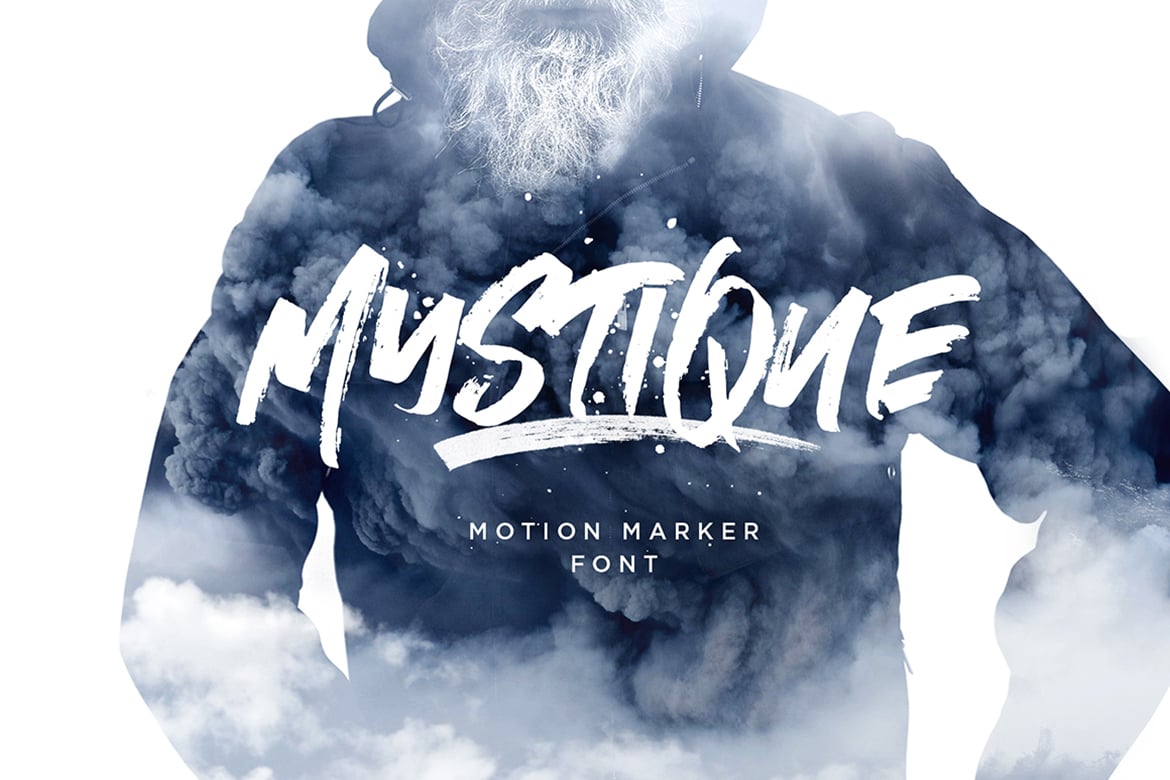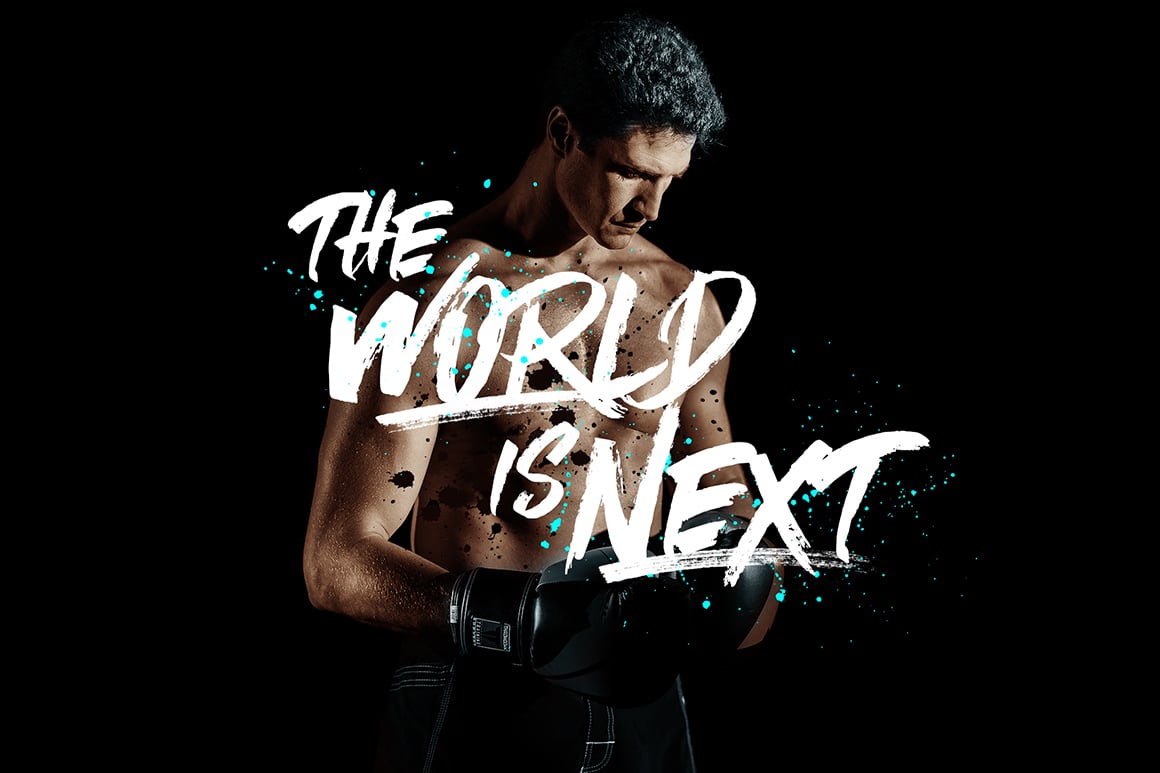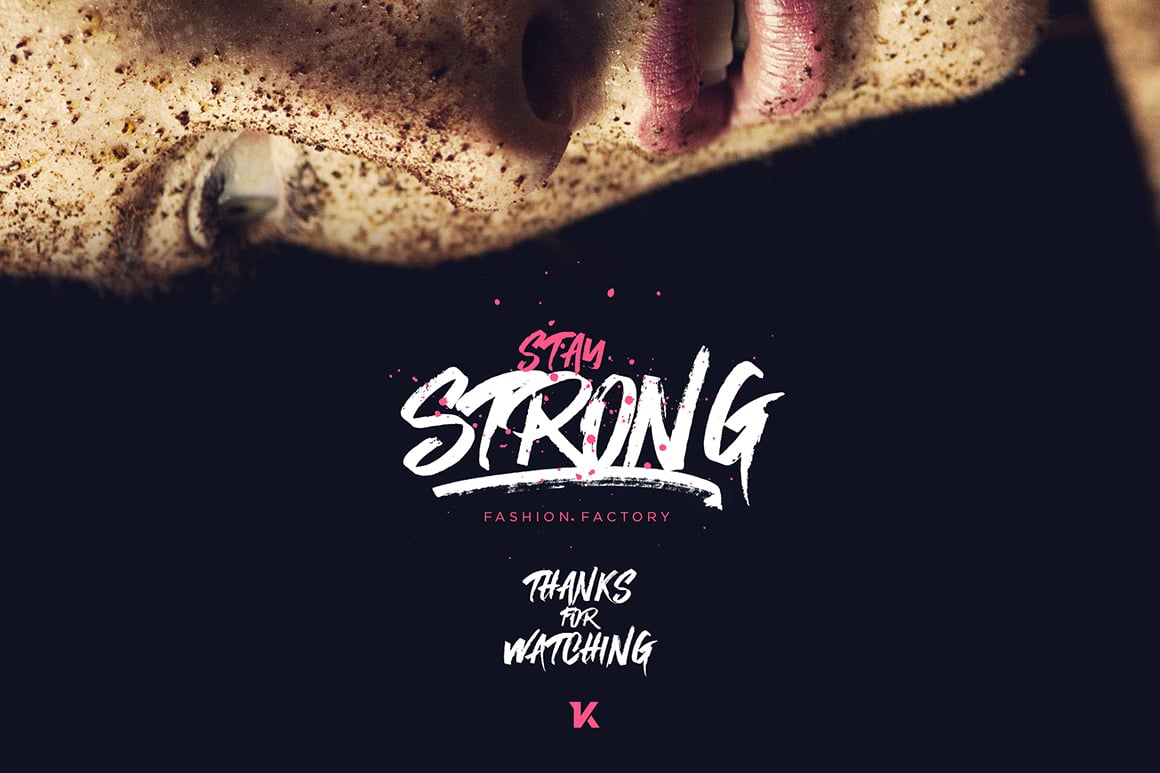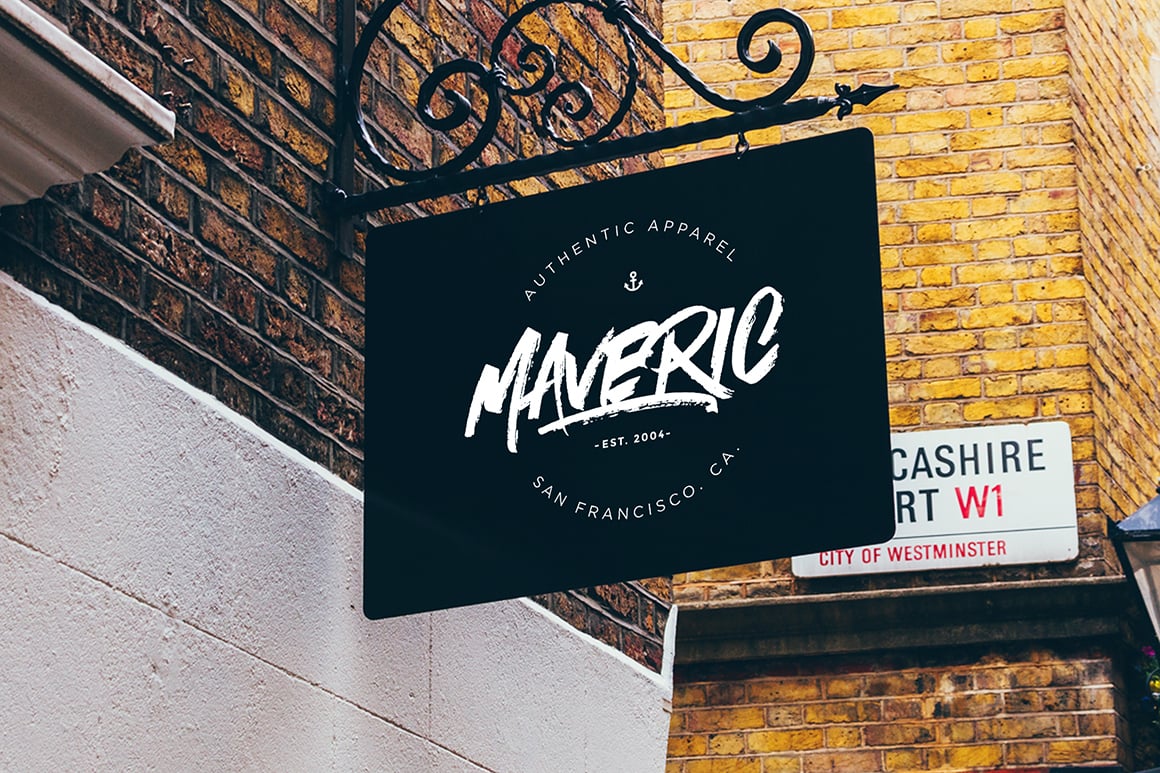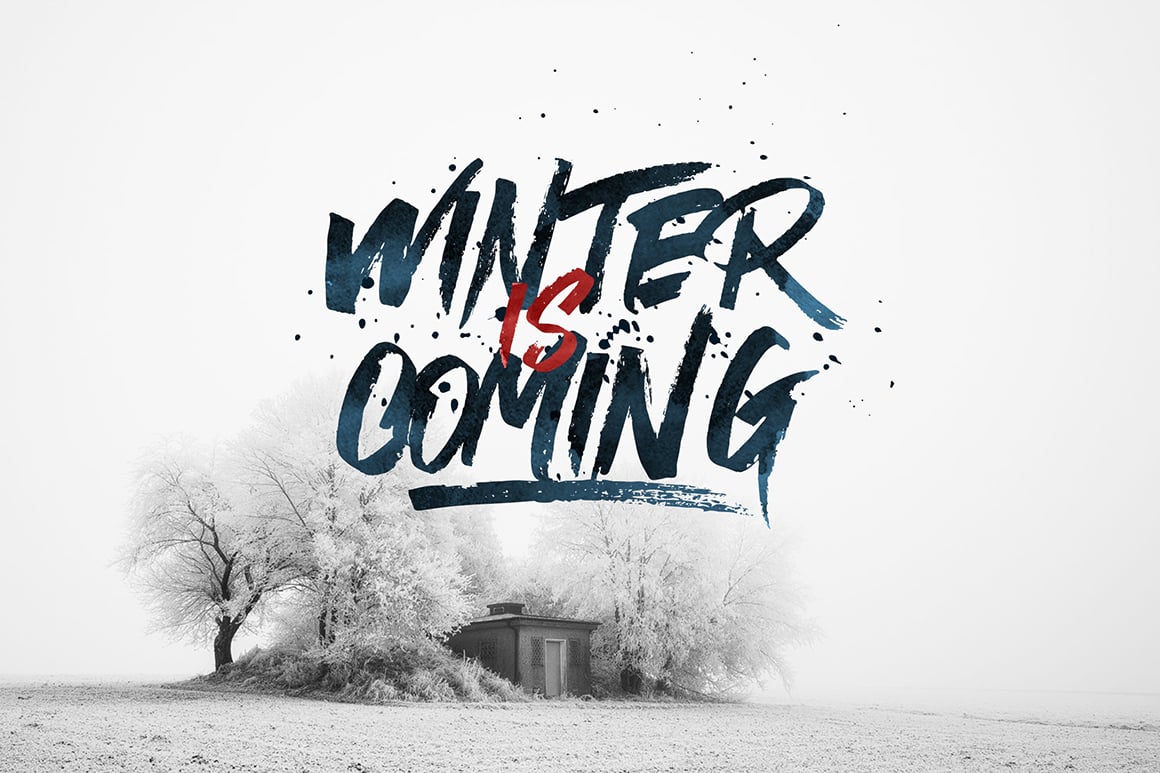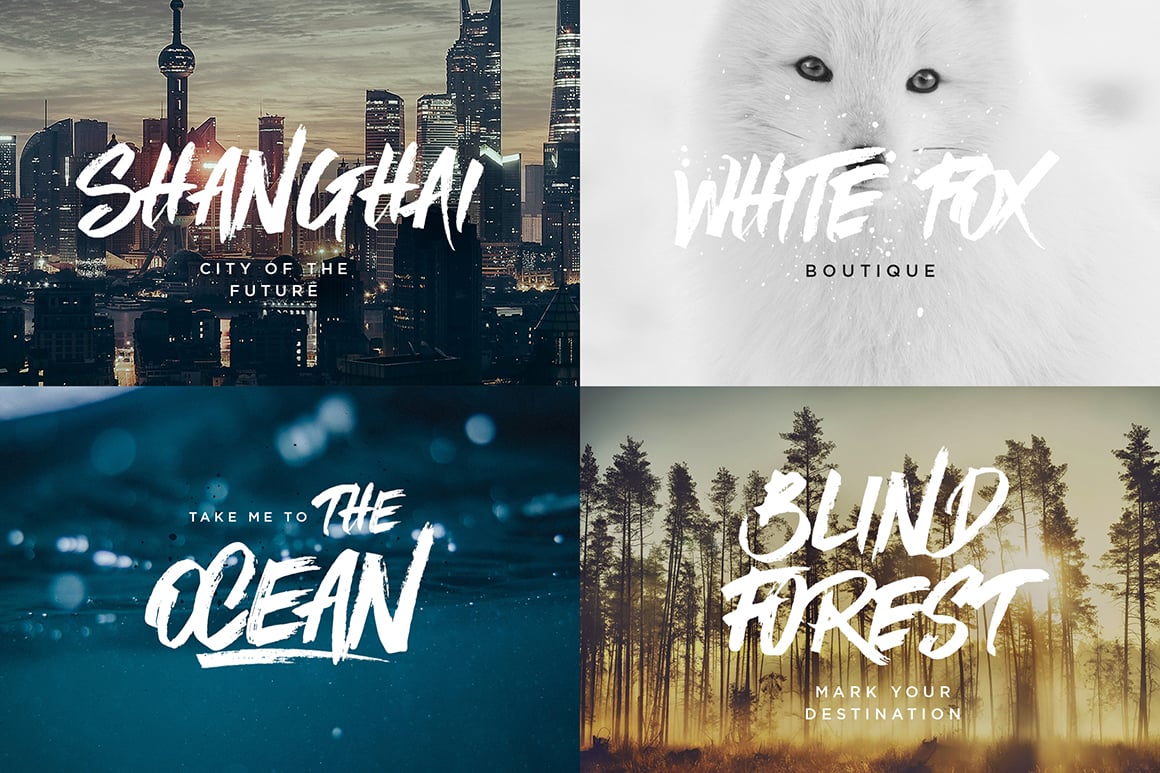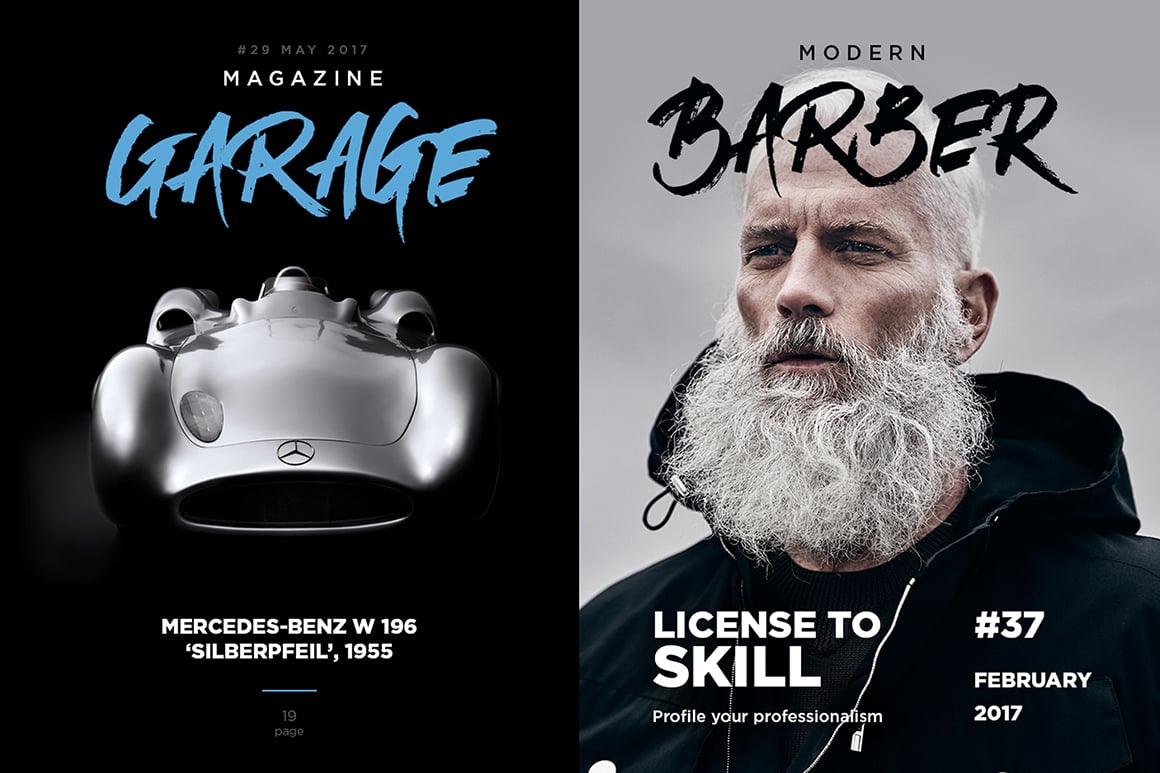
Mystique Marker Font
Mystique comes with a full set of upper and lower case characters – giving you the extra freedom to turn your text into authentic custom-made hand lettering.
Mystique font Includes a large range of glyphs including numerals, punctuation & multilingual support.
- Splashes & Splatters
- Alternate letters